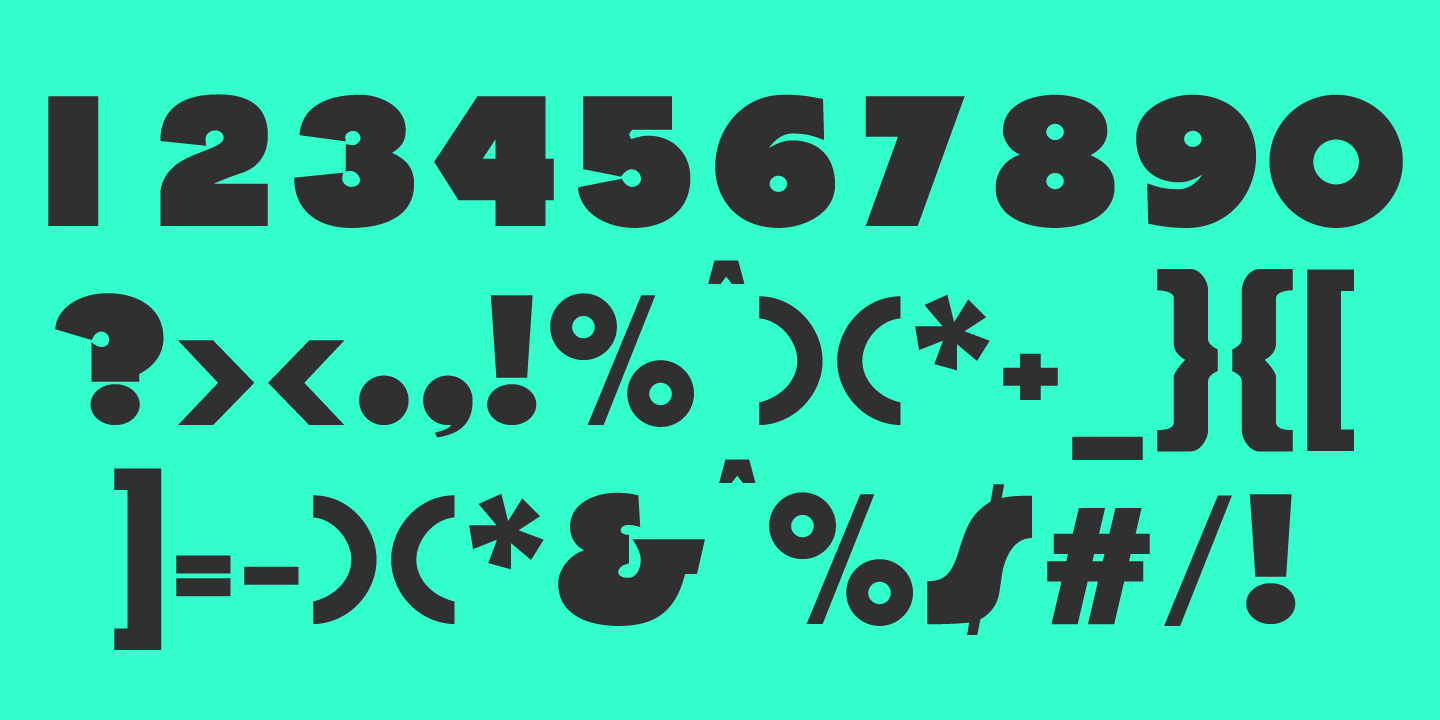
Churchward Font is perfect for religious organization branding, church bulletins and newsletters, spiritual retreat materials, faith-based community signage, religious book publishing, and sacred ceremony invitations.
Churchward Font is exciting because it embodies timeless spiritual dignity and sacred reverence, offering designers a distinguished typeface that captures the solemn beauty and eternal wisdom of religious tradition.
The Churchward Font family includes sacred variations: Churchward Light, Churchward Regular, Churchward Medium, Churchward Bold, ecclesiastical ornaments, and decorative elements inspired by traditional church architecture and religious manuscripts.
Honor sacred traditions with Churchward Font Free Download, a reverently crafted typeface that brings spiritual dignity and religious authenticity to your most meaningful faith-based design projects. This distinguished font excels in creating respectful branding for churches, synagogues, mosques, and interfaith organizations that serve diverse spiritual communities with compassion and devotion. The thoughtfully designed letterforms feature classical proportions and subtle sacred references that communicate reverence, tradition, and spiritual authority while ensuring excellent readability across all religious applications. Perfect for prayer books, religious education materials, faith-based counseling services, and spiritual conference programs that need to convey sanctity and inspire contemplation, this font connects with congregations seeking authentic spiritual expression. Each character stands with quiet dignity, making every sacred message feel like a blessing delivered with reverent care and eternal wisdom. Churchward Font transforms religious communications into inspiring testimonies that strengthen faith communities and honor the sacred calling to serve others with love and compassion.